20 Catchy Outlined Fonts Collection
4We have a new collection today, and this collection is for some amazing outline fonts, 20 catchy outlined fonts that you can use in different designs and ideas.
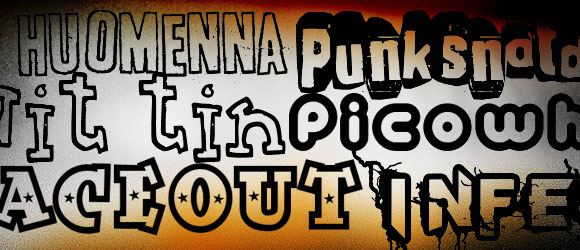
Outlined fonts may work for you if you are looking for something lighter or if you’re trying to achieve a transparent feel. I know this type of fonts are not used frequently, but there are situations where outlined fonts are just right. I don’t want you to be unprepared – go ahead and check the 20 outlined fonts I put together below. All of them are free.